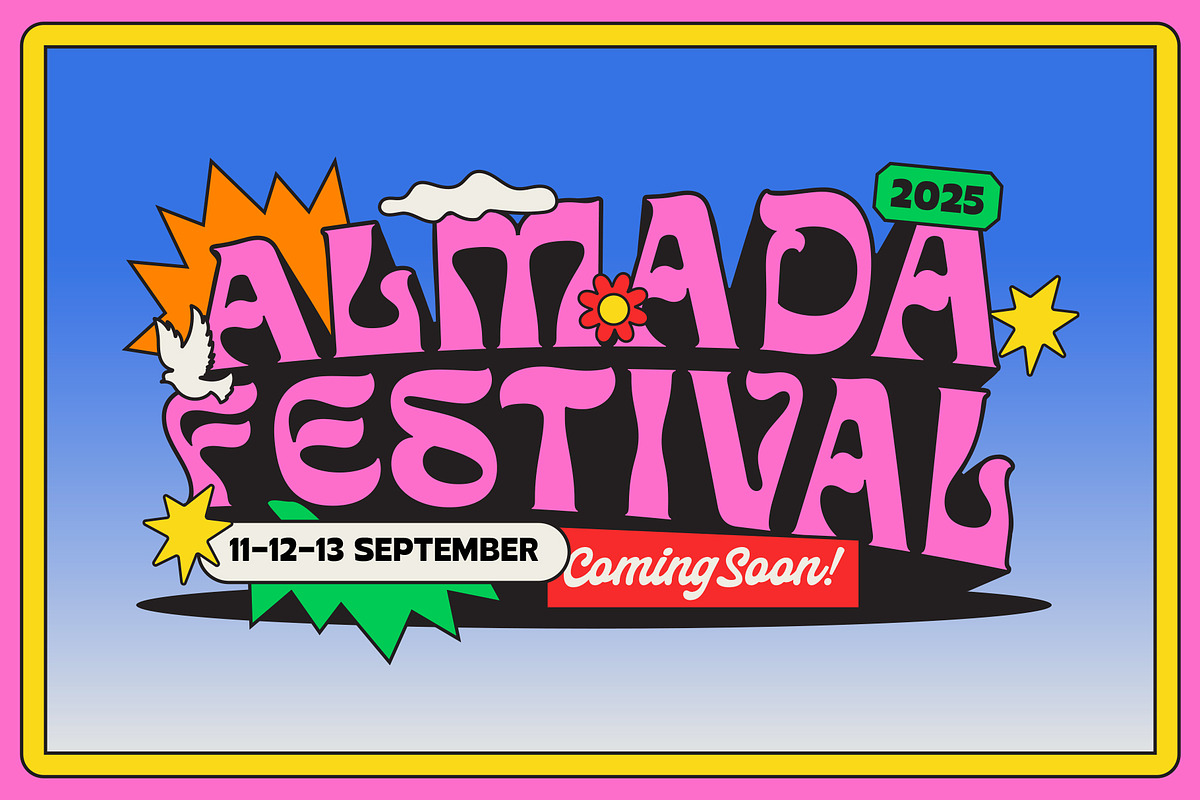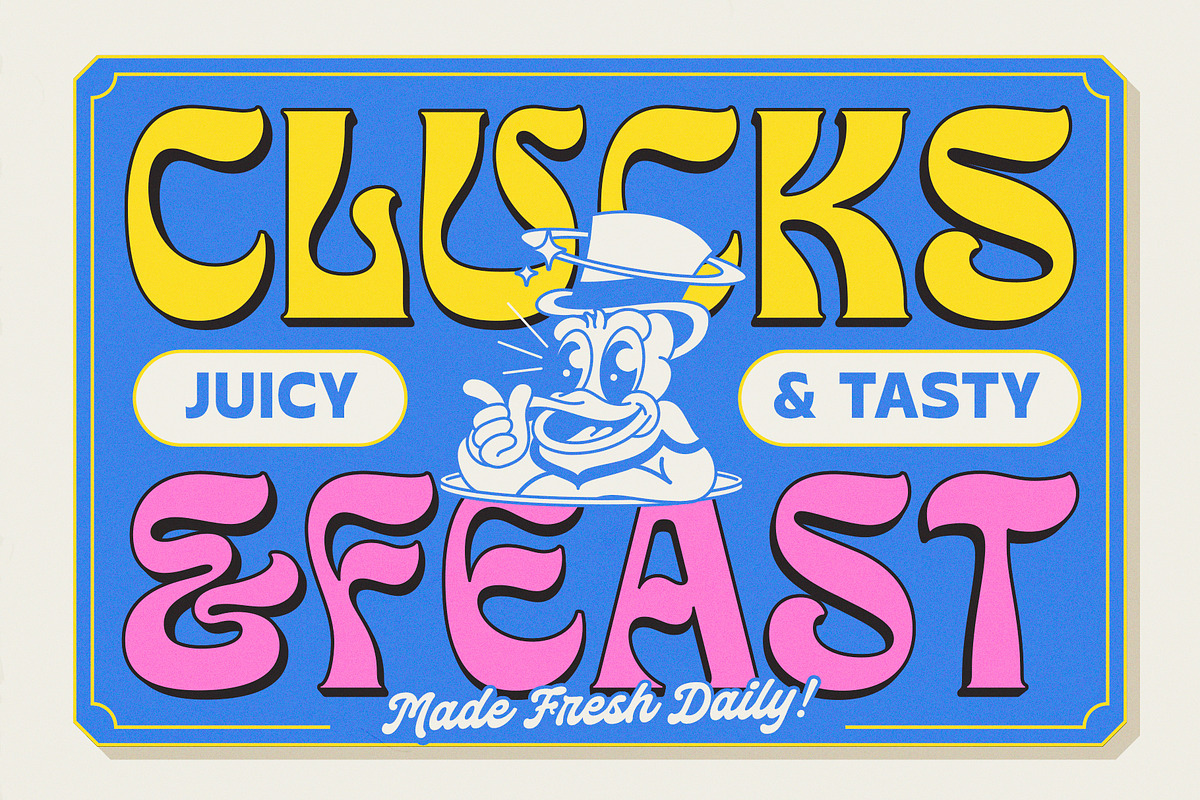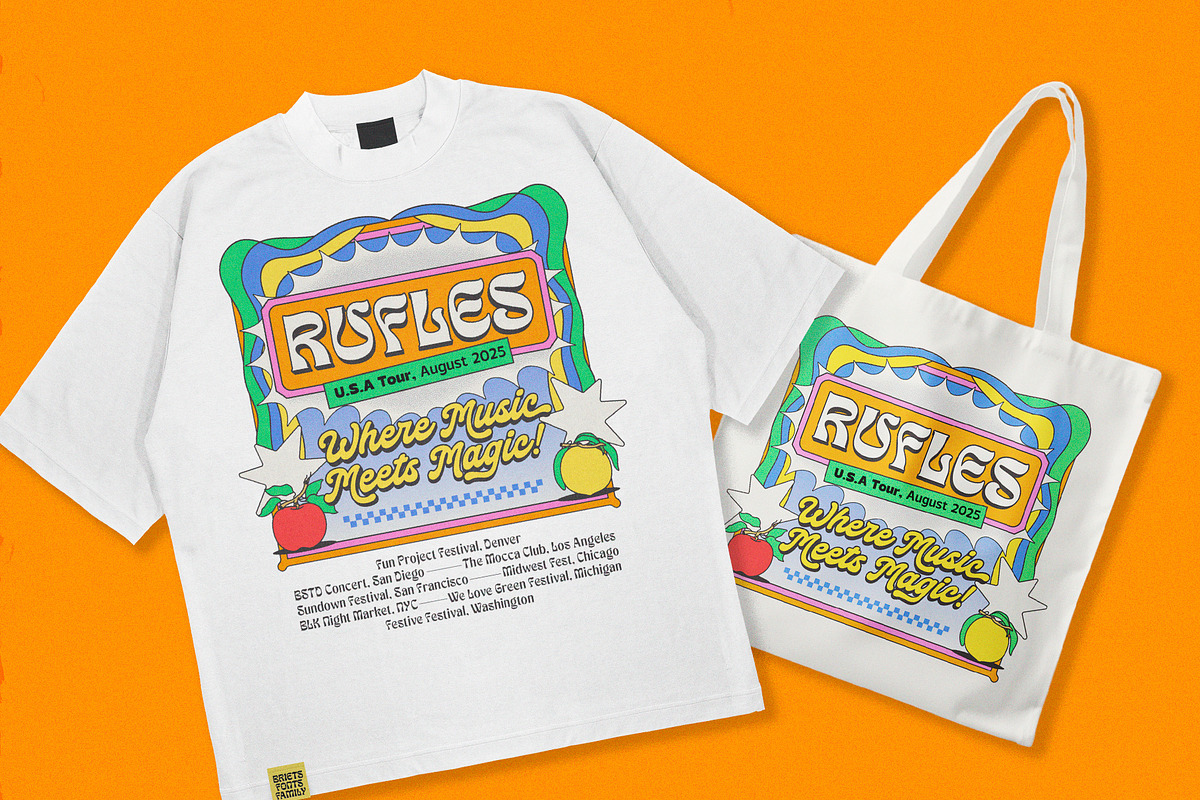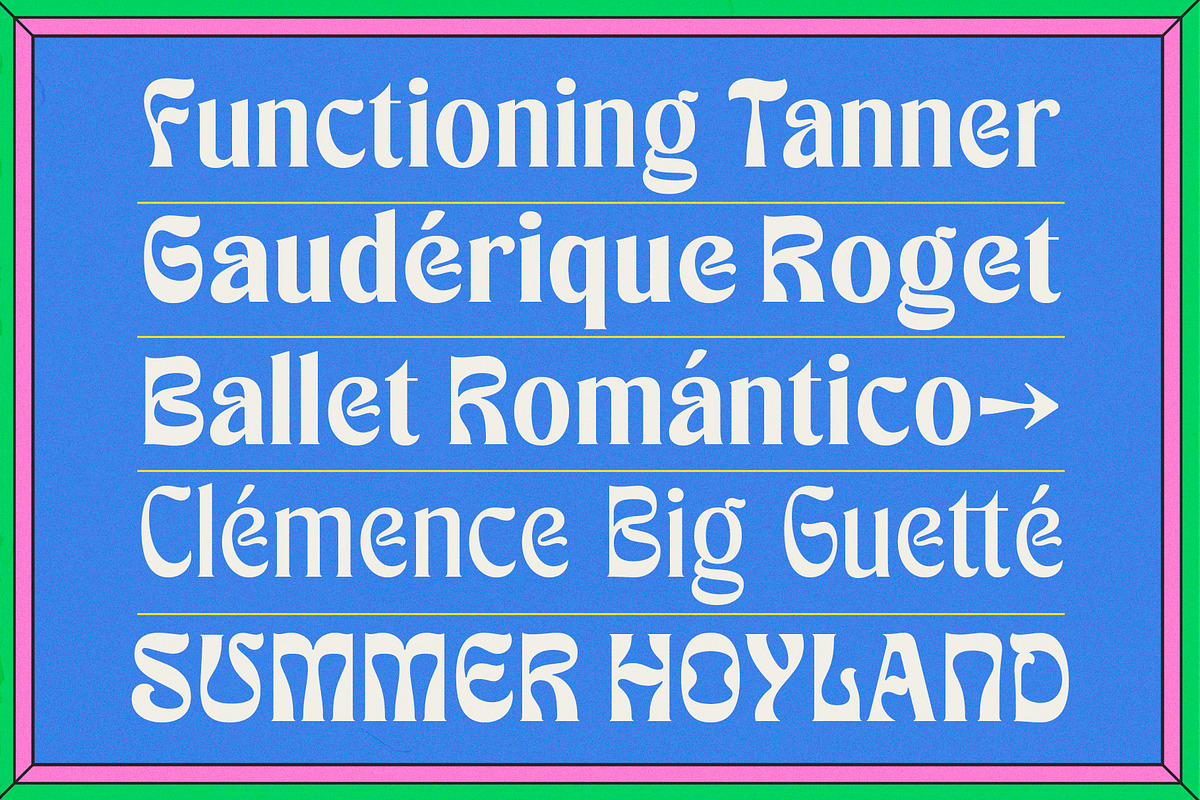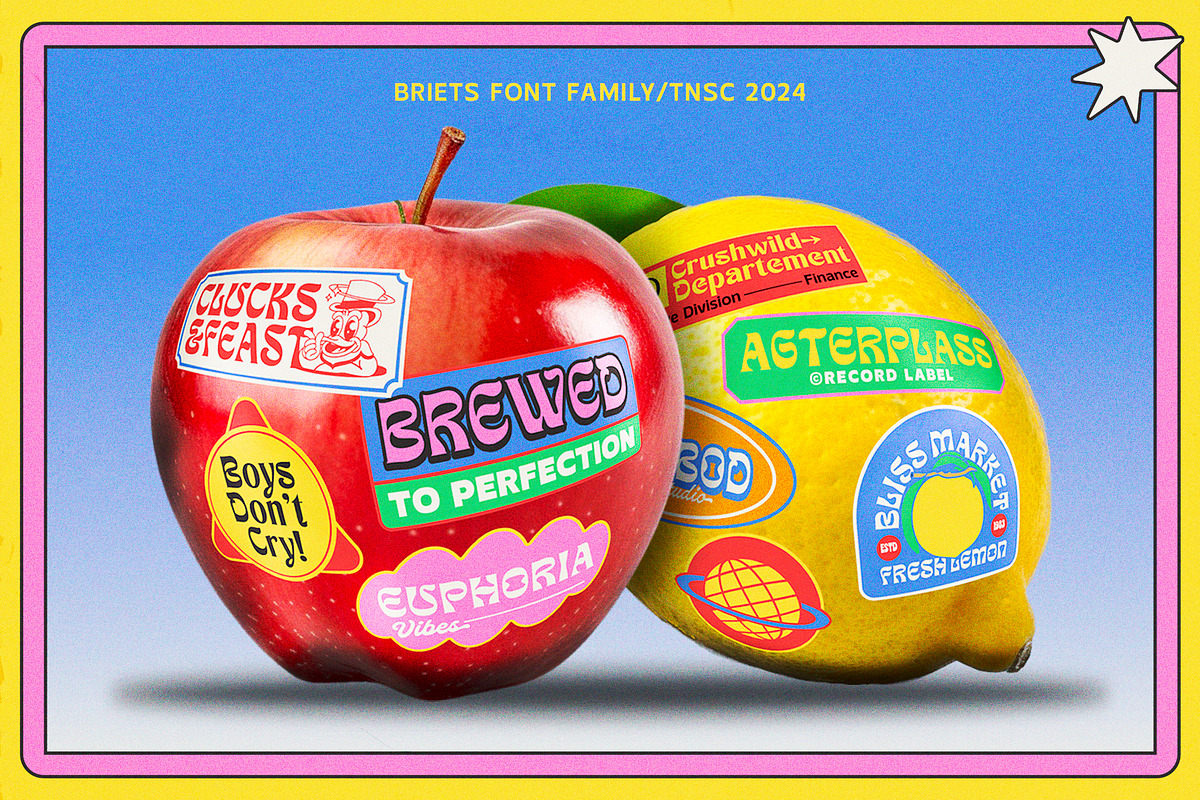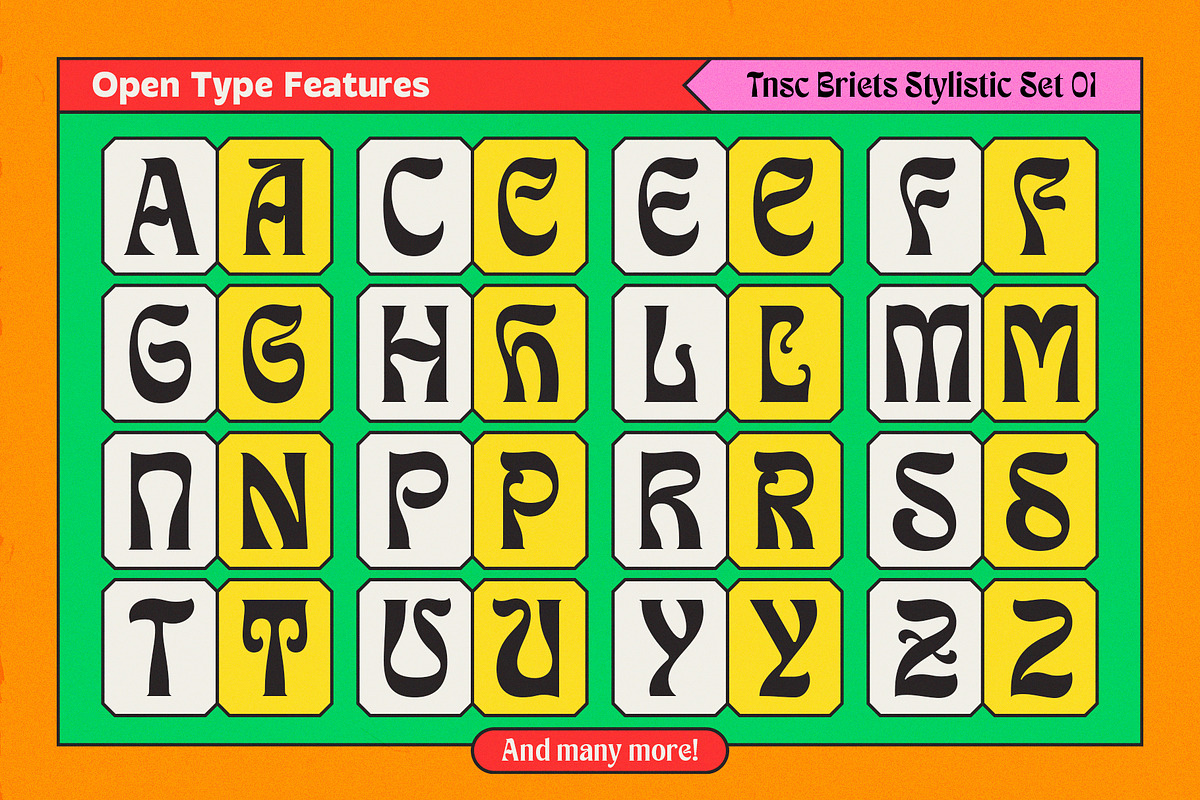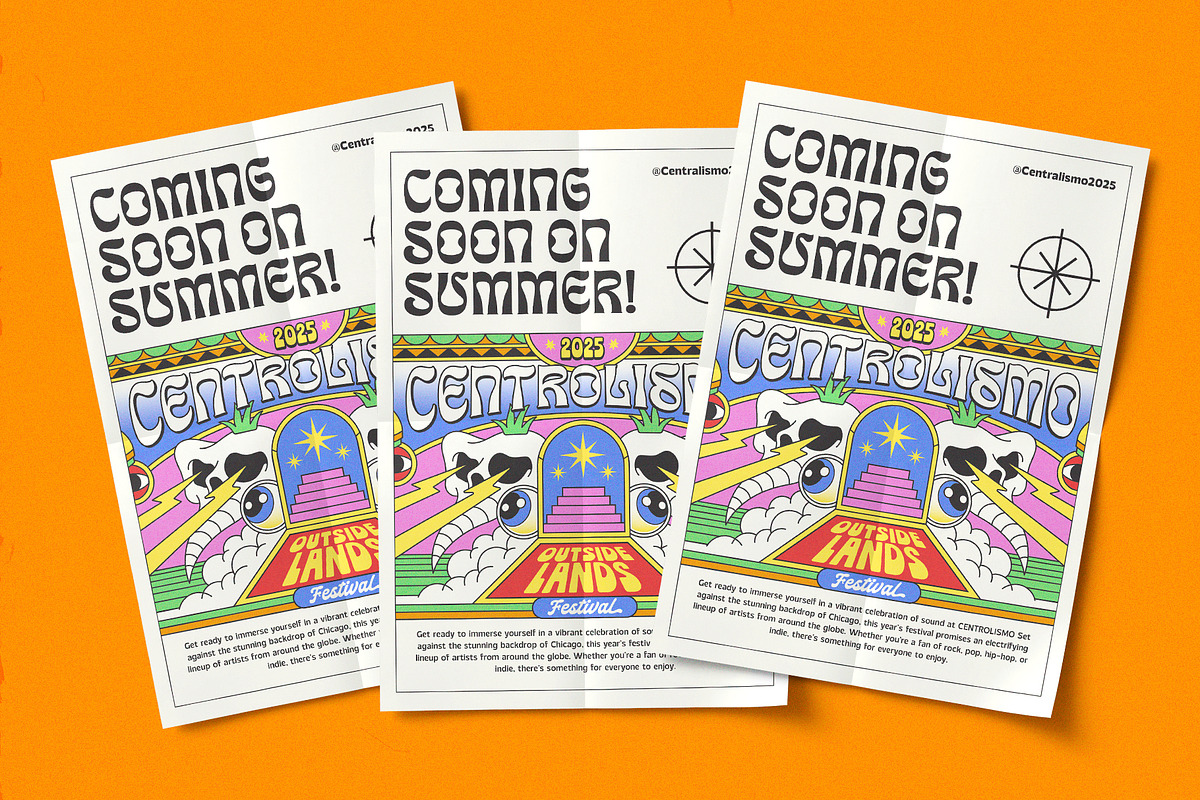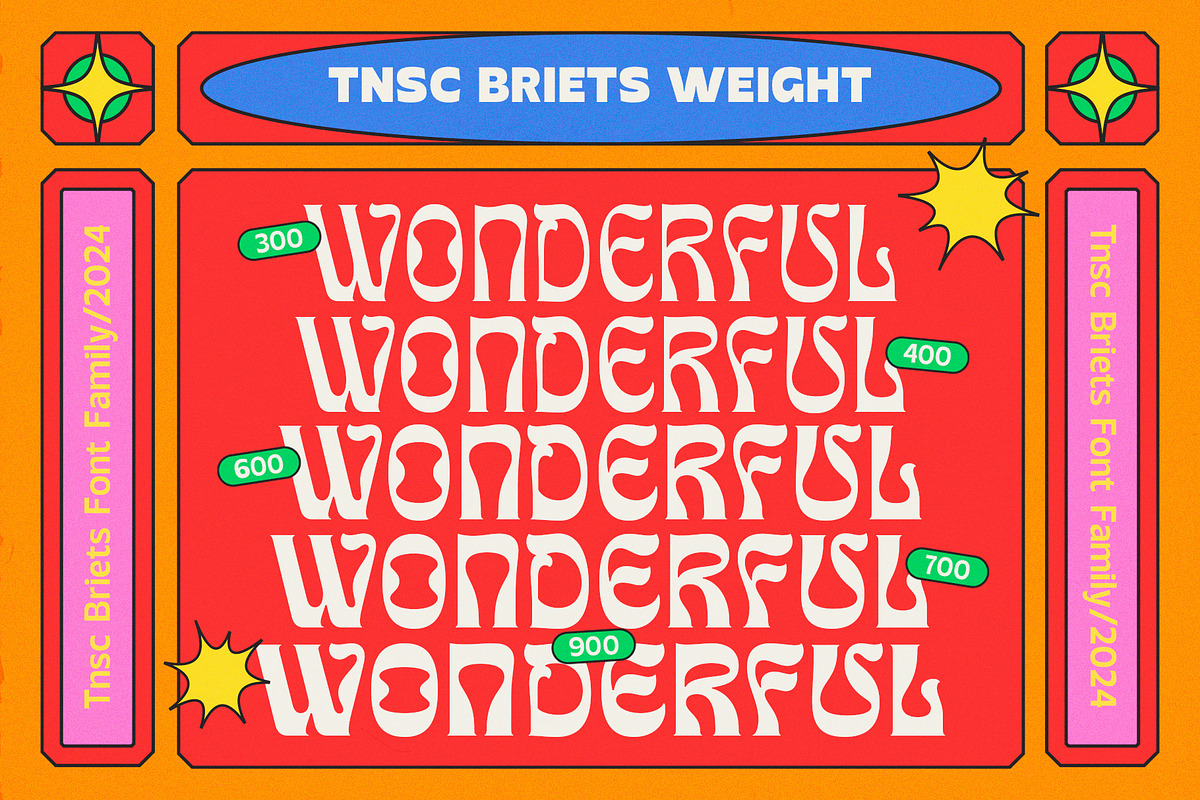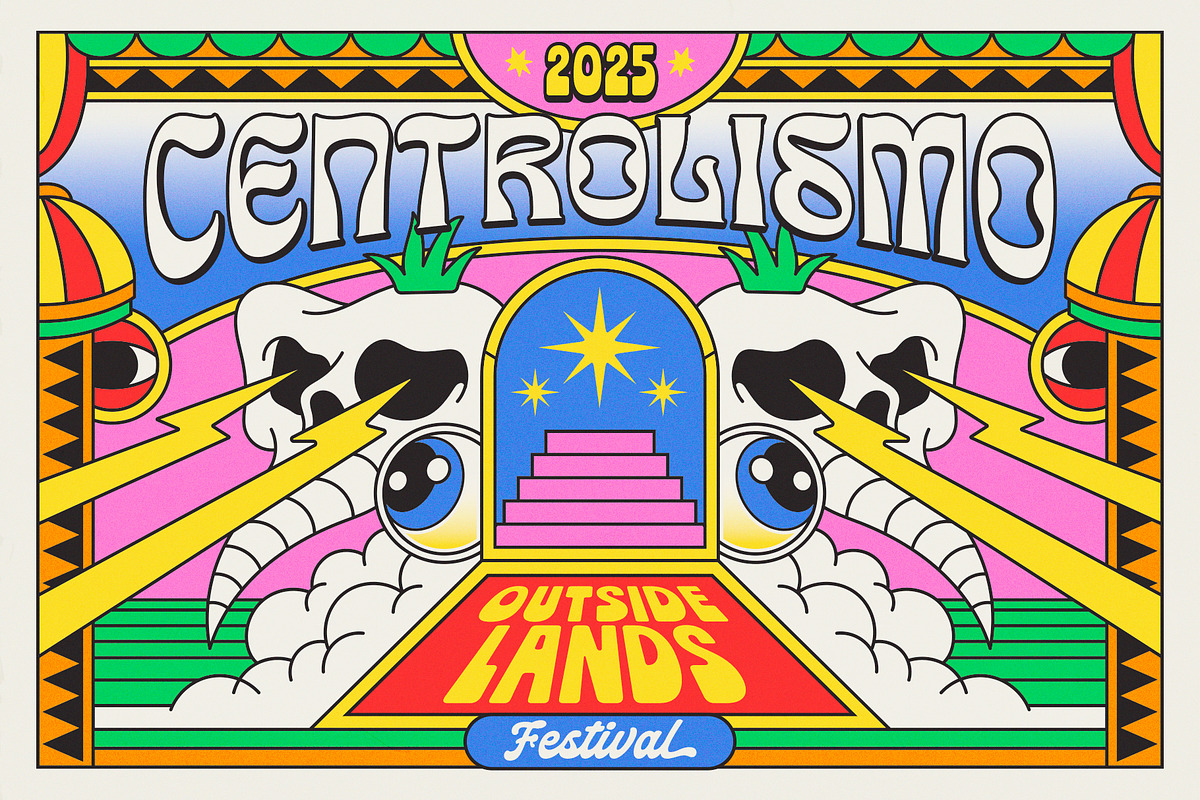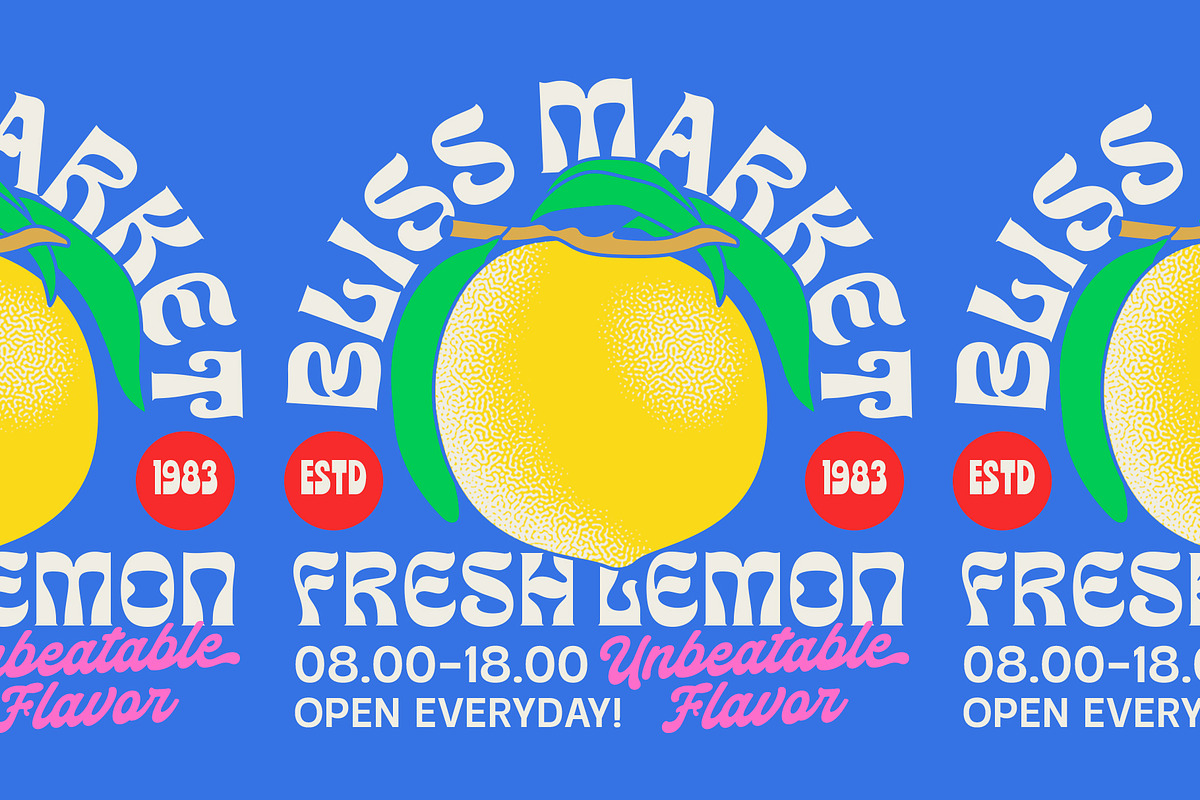
TNSC Briets - Psychedelic Font
TNSC Briets – a experimental font takes inspiration from the psychedelic era. Briets font family comes with 5 styles: Light, Regular, Medium, Bold & Heavy, it comes with Stylistic and ligature sets.